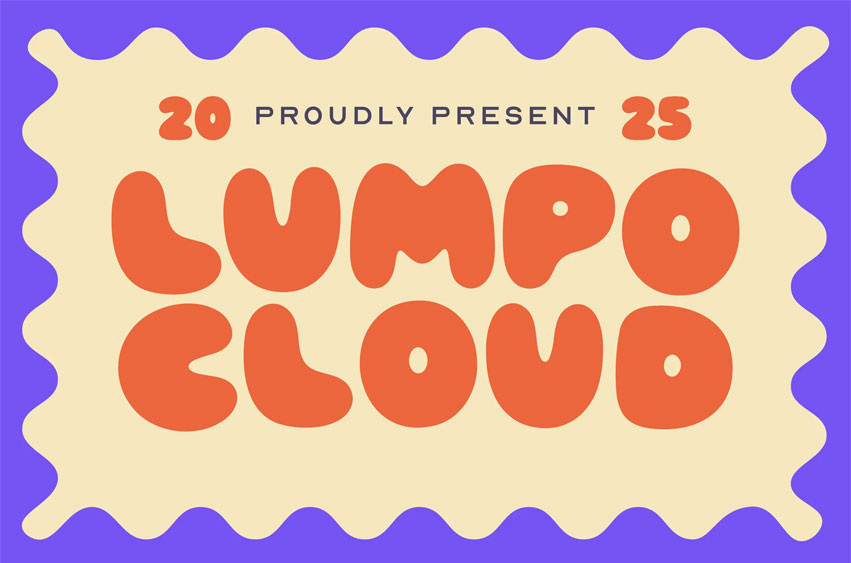
Lumpo Cloud Font is a chunky bubble display font with soft, blobby shapes and a friendly personality. The letters feel like floating clouds or jelly blobs, making every word look fun, approachable, and full of character.
This typeface is perfect for kids-related projects, snack and dessert branding, posters, banners, event titles, and cheerful social media graphics. Use LumpO Cloud for big headlines and logo wordmarks whenever you want a bold, cute, and eye-catching look.
The font includes all caps letters, numbers, and punctuation so you can easily build complete layouts for both print and digital designs while keeping a consistent playful style.
Features: Chunky bubble / blob display style All caps letterforms with soft rounded edges Numbers and basic punctuation included Great legibility at large sizes Ideal for kids, food, and fun themes Suitable for both print and digital use